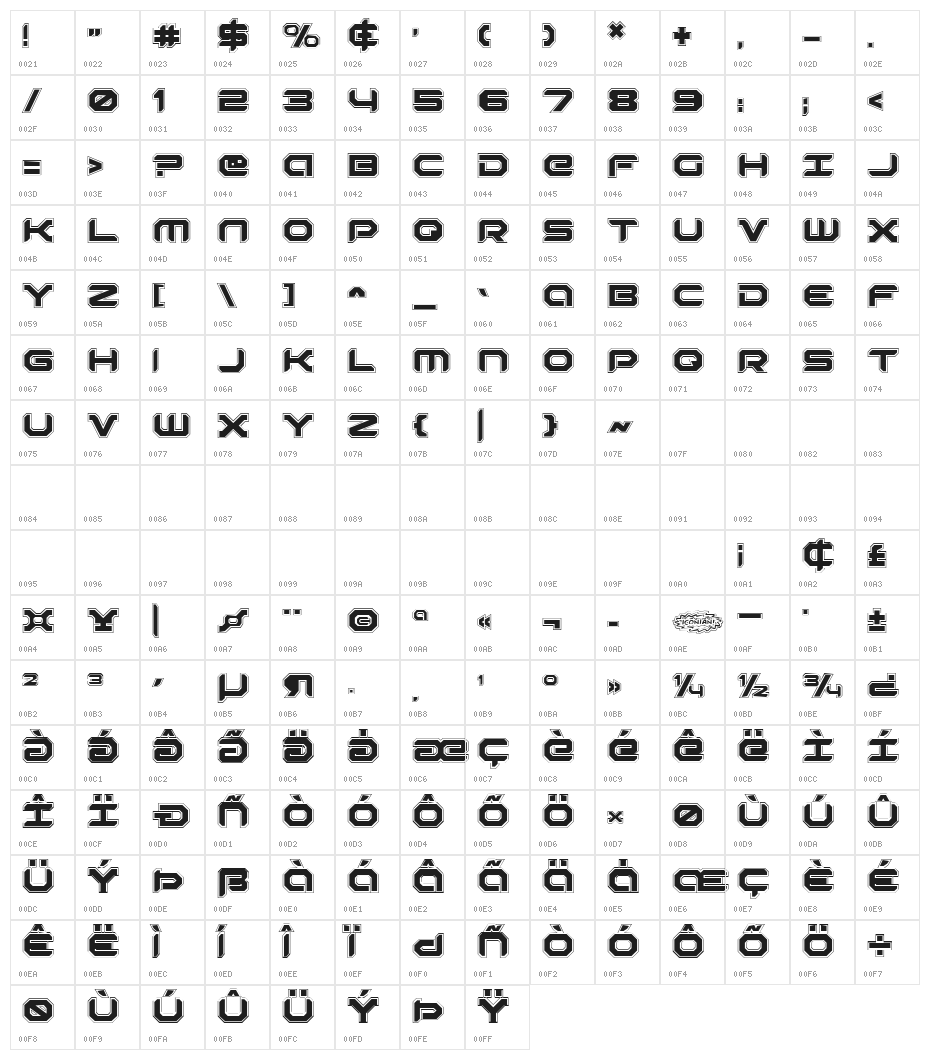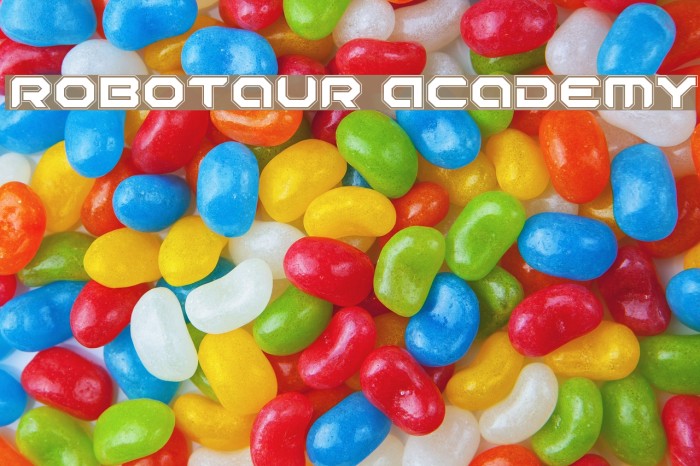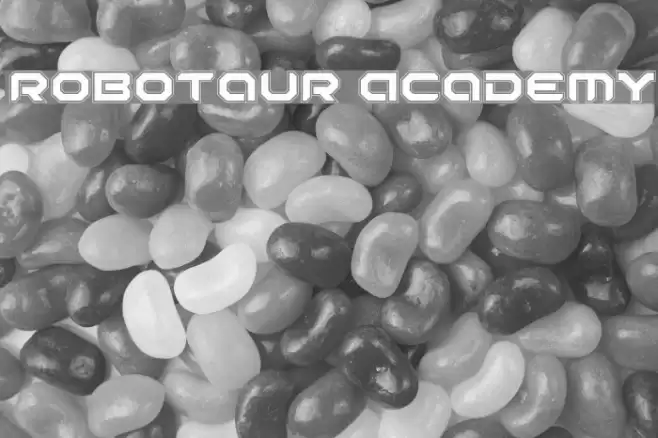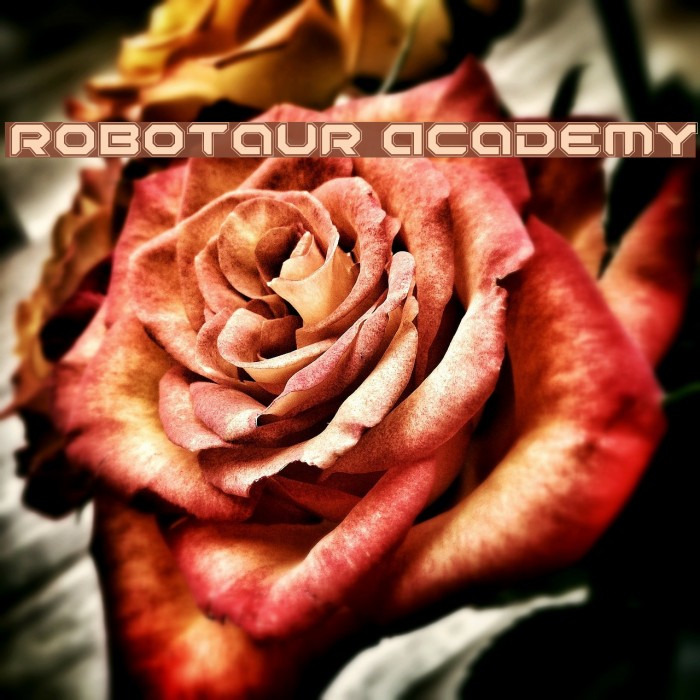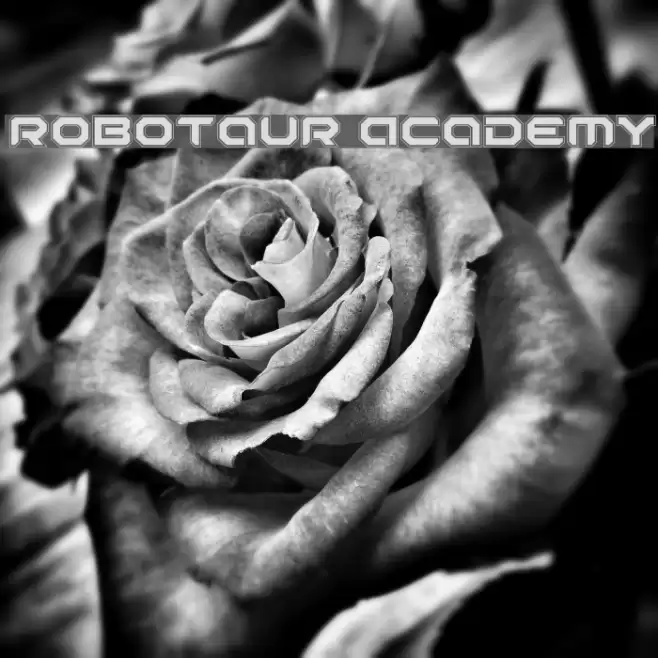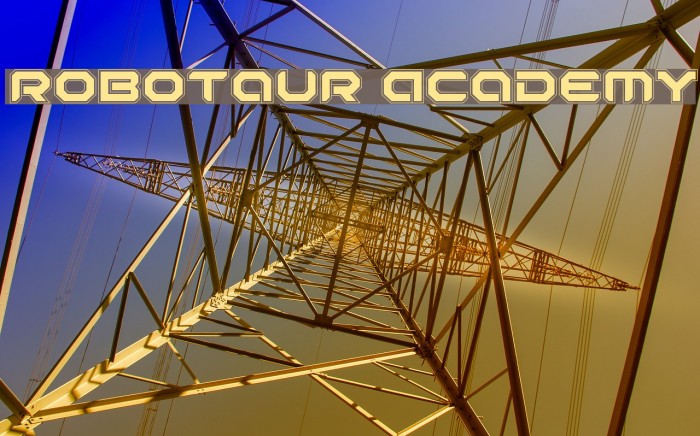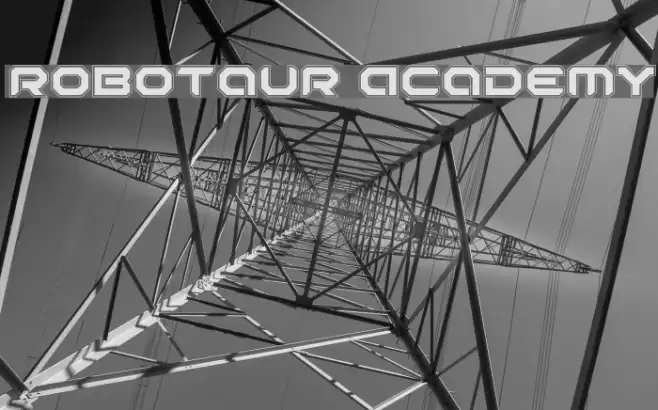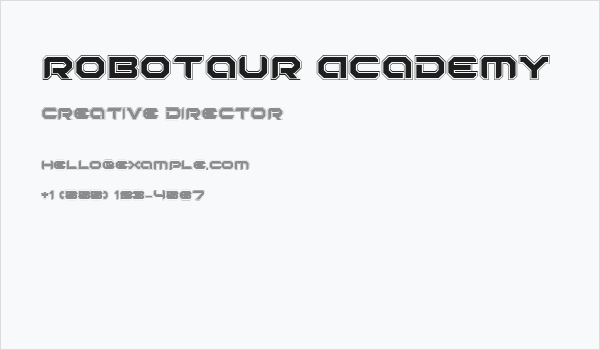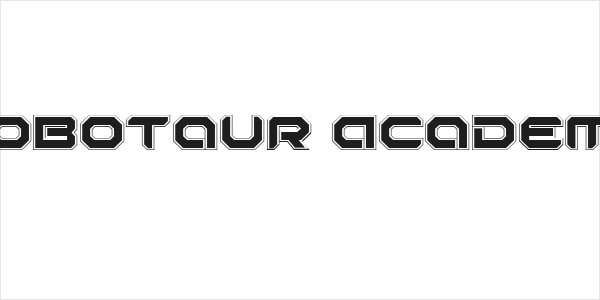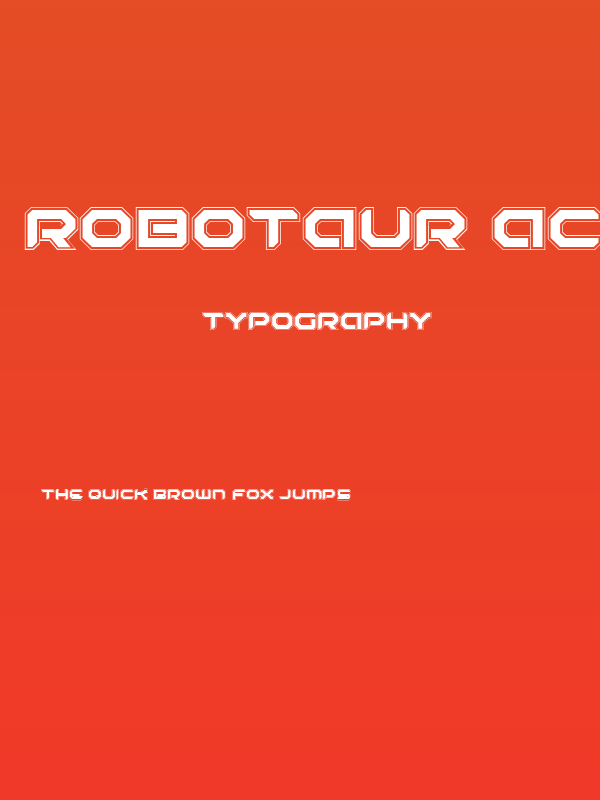
Robotaur Academy Font
Robotaur Academy Description
This font features a bold, futuristic design with a strong geometric structure. Each character is outlined with a thick border, giving it a three-dimensional appearance. The letters are uniformly wide, with sharp angles and straight lines that create a sense of precision and modernity. The font's style is reminiscent of digital or sci-fi themes, making it ideal for projects that require a tech-savvy or avant-garde look. The consistent weight and spacing ensure readability while maintaining a distinctive visual impact.